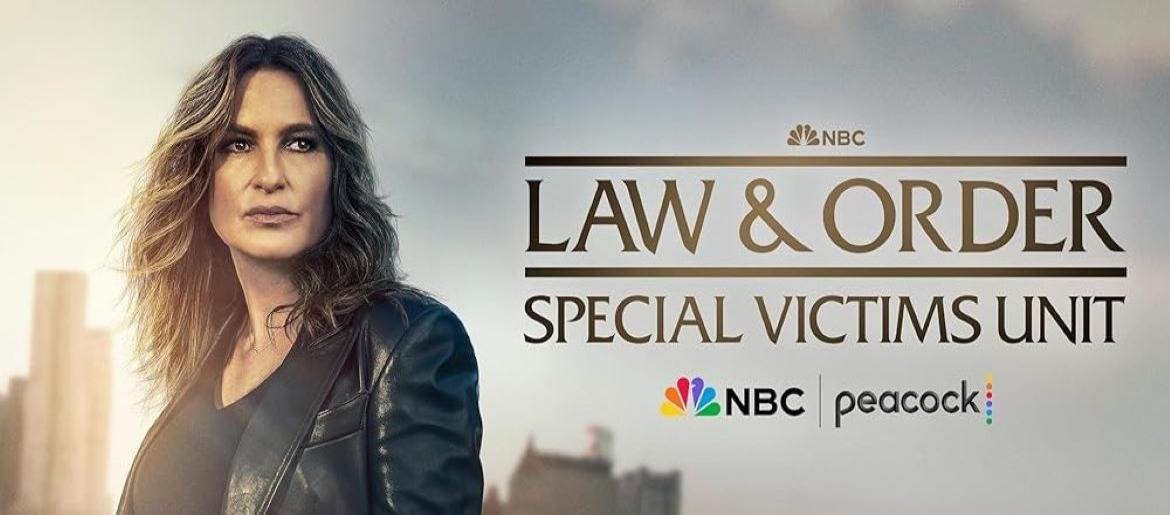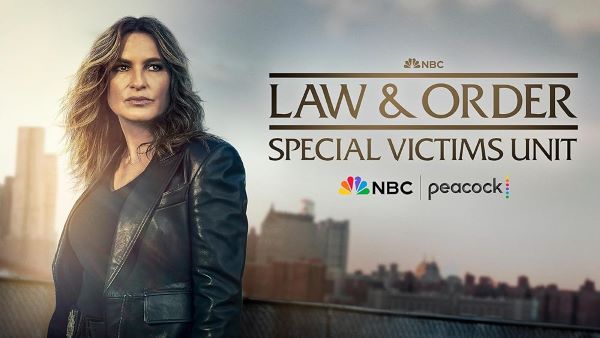
Law & Order Font
What Font is Law & Order?
The font used in the Law & Order logo is most likely Friz Quadrata Pro Regular, a premium glyphic-serif typeface characterized by its strong serifs and slightly flared terminals—traits that give the title a bold, authoritative presence. While this typeface is not free, we’ve identified a free alternative font that closely mirrors its structure and can serve as an excellent substitute for personal design projects.
About Law & Order
Premiering in 1990 and created by Dick Wolf, Law & Order is an American crime-drama television series set in New York City. The show divides each hour into two distinct halves: the first follows detectives investigating a crime, and the second shifts to the Manhattan District Attorney’s office prosecuting the case. Over its original two-decade run and through its revival, the series has featured major cast members such as Jerry Orbach, Sam Waterston and S. Epatha Merkerson. Known for drawing inspiration from real-life criminal cases and presenting a no-nonsense take on justice, Law & Order remains a widely influential fixture in police and legal drama.